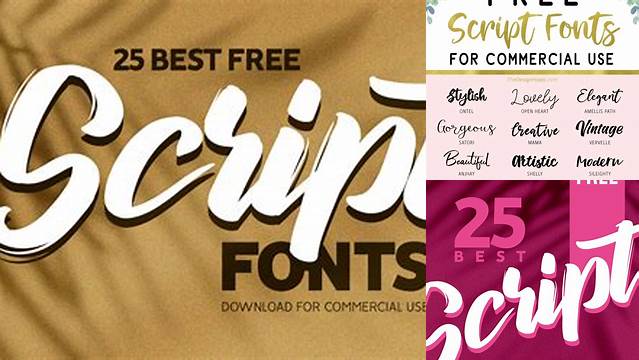
Top Free Script Fonts For Commercial Use
Hey guys! Finding the perfect script font for your project can be a real game-changer. But let's face it, not everyone has the budget to splurge on premium fonts. That's why I've put together this ultimate guide to the best free commercial script fonts out there. Whether you're working on branding, websites, or print materials, these fonts will help you add a touch of elegance and personality without breaking the bank. So, let's dive in and explore the fantastic world of free script fonts!
1. Elegant Free Script Fonts for Branding
When it comes to branding, the right font can make all the difference. Elegant free script fonts can help your brand project a sense of sophistication, luxury, and approachability. Imagine a high-end boutique using a delicate script font for their logo – it immediately conveys a certain image. But what makes a script font truly elegant? It's often the flow of the letters, the delicate strokes, and the overall aesthetic that exudes class. These fonts are perfect for logos, website headers, and marketing materials. Think about how the font will look on a business card or a website banner; it needs to be legible yet stylish. Choosing an elegant script font means finding one that’s not overly decorative but still has a unique flair. Look for fonts with smooth connections between letters and a consistent baseline. You might want to consider how the font pairs with other fonts in your branding palette, ensuring a harmonious and professional look. In short, using an elegant free script font can elevate your branding and help you create a memorable and impactful impression.
2. Modern Free Script Fonts for Websites
In the world of web design, staying current is key. Modern free script fonts can add a touch of personality and style to your website without sacrificing readability. A contemporary script font can make your website stand out from the crowd, whether it's used in headings, call-to-action buttons, or even body text (though use sparingly for body text!). What exactly defines a modern script font? Often, it’s a font that blends the fluidity of traditional script with a clean, contemporary aesthetic. These fonts often feature a slightly more structured feel compared to classic scripts, making them more legible on screens. When selecting a font for your website, think about how it will look on different devices and browsers. Responsiveness is crucial! You also want to consider the overall user experience. A beautifully designed script font can draw visitors in, but if it’s difficult to read, they might click away. Pairing a modern free script font with a clean sans-serif font for body text is a popular strategy for maintaining readability while adding visual interest. Experiment with different font pairings to see what works best for your site’s overall design and brand identity.
3. Creative Free Script Fonts for Print Materials
Print materials offer a tangible way to connect with your audience, and creative free script fonts can help you make a lasting impression. From business cards and brochures to posters and packaging, the right font can add personality and flair. But what makes a script font creative? It's the unique touches, the unexpected flourishes, and the overall artistry of the design. These fonts often have a handmade feel, which can add a personal and authentic touch to your print materials. When choosing a font for print, think about the medium you're using. Will it be printed on glossy paper? Matte? The texture of the paper can affect how the font appears. Also, consider the size of the font. A highly decorative script might look stunning in a large headline but be illegible in smaller body text. Balancing creativity with legibility is crucial. A well-chosen creative free script font can transform your print materials from ordinary to extraordinary, helping you capture attention and convey your message effectively.
4. Best Free Calligraphy Script Fonts
Calligraphy fonts have a timeless appeal, evoking a sense of elegance and tradition. The best free calligraphy script fonts can add a touch of sophistication to invitations, certificates, and other formal documents. But what exactly defines a calligraphy font? These fonts are inspired by the art of hand lettering, with flowing strokes and graceful curves that mimic the look of traditional calligraphy pens. When selecting a calligraphy font, pay attention to the weight and contrast of the strokes. A well-designed calligraphy font will have varying stroke thicknesses, adding to its visual interest and authenticity. These fonts often feature elaborate swashes and flourishes, so be mindful of how these details will look in different contexts. While calligraphy fonts are beautiful, they can sometimes be less legible than other script styles, especially in smaller sizes. Save them for headlines, titles, or other prominent text elements where they can truly shine. Using one of the best free calligraphy script fonts can add a touch of artistry and class to your designs, making them stand out with timeless beauty.
5. Free Handwritten Script Fonts for a Personal Touch
Want to add a personal and relatable feel to your designs? Free handwritten script fonts are the way to go. These fonts mimic the look of actual handwriting, adding a human touch to your projects. They’re perfect for greeting cards, thank-you notes, and any design where you want to convey warmth and authenticity. But what makes a script font feel genuinely handwritten? It's the imperfections, the slight variations in stroke width, and the unique character of each letter. These fonts often have a more casual and informal feel compared to traditional scripts. When using a handwritten font, think about the overall tone you want to convey. Are you going for playful and whimsical, or sincere and heartfelt? There are handwritten fonts for every mood! Because these fonts are designed to look like handwriting, legibility can sometimes be a challenge. Make sure your text is still easy to read, especially in larger blocks of copy. Integrating free handwritten script fonts into your designs can create a sense of intimacy and connection with your audience, making your message more personal and memorable.
6. Bold Free Script Fonts for Headlines
Headlines need to grab attention, and bold free script fonts are perfect for making a statement. These fonts have a strong visual presence, making them ideal for posters, banners, and website headers. A bold script can immediately convey a sense of confidence and style, drawing the reader's eye and making your message stand out. But what makes a script font bold? It’s the heavier weight of the strokes, which creates a more substantial and impactful appearance. When selecting a bold script font, legibility is key. Make sure the letters are still clear and easy to read, even at larger sizes. Avoid fonts that are overly decorative or have too many flourishes, as these can become distracting in a bold format. Consider the overall tone of your headline. Do you want it to feel modern and edgy, or classic and sophisticated? There's a bold script font to suit every style. Using one of the bold free script fonts in your headlines can ensure your message is seen and remembered, making your design more impactful and effective.
7. Light Free Script Fonts for Subtitles
While headlines demand boldness, subtitles often benefit from a lighter touch. Light free script fonts are perfect for adding a subtle elegance to your designs without overwhelming the main text. These fonts are ideal for invitations, thank-you notes, and other delicate designs. But what defines a light script font? It's the thinness of the strokes, which creates a more delicate and airy appearance. A light script font can add a touch of sophistication without overpowering the main message. When choosing a light script font, legibility is crucial. Ensure the font remains readable even at smaller sizes and on different backgrounds. Avoid using light script fonts on overly busy or textured backgrounds, as this can make them difficult to read. Consider the overall aesthetic of your design. Do you want a minimalist and modern feel, or a more classic and traditional look? There's a light script font to complement every style. Using light free script fonts for your subtitles can add a refined and graceful touch, enhancing the overall design without stealing the spotlight from the main content.
8. Free Script Fonts with Swashes and Flourishes
Swashes and flourishes can add an extra layer of elegance and personality to your script fonts. Free script fonts with swashes and flourishes are perfect for creating eye-catching designs, adding a decorative touch to invitations, logos, and more. But what exactly are swashes and flourishes? They're the extra strokes and decorative elements that extend from the letters, adding flair and visual interest. These fonts often have a more formal and ornate feel, making them suitable for special occasions and high-end branding. When using fonts with swashes and flourishes, moderation is key. Too many decorative elements can make your text look cluttered and difficult to read. Use these elements sparingly, focusing on key letters or words to add emphasis. Consider the overall design of your project. Do you want a vintage and romantic feel, or a more modern and whimsical look? There's a font with swashes and flourishes to suit every style. Integrating free script fonts with swashes and flourishes can transform your designs into works of art, adding a touch of sophistication and charm.
9. Vintage Free Script Fonts for Retro Designs
Retro designs are all the rage, and vintage free script fonts are the perfect way to capture that nostalgic feel. These fonts evoke the charm and character of past eras, adding a touch of authenticity to your projects. Whether you're working on a retro-themed poster, a vintage-inspired logo, or a classic invitation, a vintage script font can transport your audience back in time. But what makes a script font vintage? It’s often the unique letterforms, the textured appearance, and the overall aesthetic that harkens back to a specific era. Think about the fonts used in old advertisements or movie posters – those are great sources of inspiration. When choosing a vintage script font, consider the specific era you're trying to emulate. The fonts used in the 1920s will have a different look and feel than those from the 1950s or 1970s. Also, think about how the font will pair with other design elements, such as colors and illustrations. Using vintage free script fonts can add depth and character to your designs, creating a timeless appeal that resonates with your audience.
10. Casual Free Script Fonts for Friendly Projects
For projects that need a friendly and approachable feel, casual free script fonts are the way to go. These fonts have a relaxed and informal vibe, making them perfect for social media graphics, blog headers, and personal projects. A casual script can convey warmth and authenticity, inviting your audience to connect with your message on a more personal level. But what makes a script font casual? It's the loose and flowing letterforms, the slight imperfections, and the overall handmade feel. These fonts often have a more playful and whimsical look compared to formal scripts. When selecting a casual script font, consider the tone of your project. Do you want it to feel fun and lighthearted, or sincere and heartfelt? There's a casual script font to suit every mood. Legibility is still important, even with a casual font. Make sure the letters are clear and easy to read, especially in larger blocks of text. Integrating casual free script fonts into your designs can create a welcoming and approachable atmosphere, making your audience feel right at home.
11. Brush Free Script Fonts for Artistic Flair
Want to add an artistic touch to your designs? Brush free script fonts are the perfect way to do it. These fonts mimic the look of hand-painted brushstrokes, adding a dynamic and expressive feel to your projects. They're ideal for posters, album covers, and any design where you want to convey creativity and energy. But what defines a brush script font? It's the bold strokes, the textured appearance, and the overall feeling of movement and fluidity. These fonts often have a more organic and handmade look compared to traditional scripts. When choosing a brush script font, consider the level of detail and texture. Some brush scripts are highly detailed, while others have a more simplified and abstract look. Also, think about how the font will pair with other design elements, such as illustrations and photographs. Using brush free script fonts can transform your designs into works of art, adding a touch of artistry and flair that captures attention and inspires creativity.
12. Modern Calligraphy Free Script Fonts
Blending the elegance of calligraphy with a contemporary edge, modern calligraphy free script fonts are a fantastic choice for projects seeking sophistication with a twist. These fonts often feature cleaner lines and a less formal structure than traditional calligraphy, making them suitable for a wider range of applications, from wedding invitations to website headers. But what exactly sets modern calligraphy apart? It’s the fusion of classic calligraphic techniques with modern design sensibilities. This means you get the beauty and flow of calligraphy but with a more streamlined and accessible feel. When choosing a font, consider the overall tone of your project. Do you want a font that feels romantic and delicate, or one that’s more bold and assertive? Modern calligraphy fonts come in a variety of styles, each with its own unique personality. A well-chosen modern calligraphy free script font can add a touch of class and creativity to your designs, helping you create a lasting impression.
13. Free Script Fonts for Logo Design
A logo is the cornerstone of any brand, and the font you choose plays a crucial role in conveying your brand’s identity. Free script fonts for logo design offer a cost-effective way to create a memorable and impactful visual mark. But what makes a script font suitable for a logo? It’s a combination of readability, uniqueness, and the ability to reflect your brand’s personality. Your logo font should be legible at various sizes, from business cards to billboards. It should also stand out from the crowd, helping your brand make a distinct impression. When selecting a font, think about your target audience and the message you want to send. A free script font for logo design can convey elegance, creativity, or a personal touch, depending on the style you choose. Experiment with different options and consider how the font pairs with your brand’s colors and other visual elements to create a cohesive and compelling logo.
14. Free Script Fonts for Wedding Invitations
Wedding invitations set the tone for your special day, and the font you choose can make a big difference in conveying the right atmosphere. Free script fonts for wedding invitations offer a range of styles, from elegant and formal to romantic and whimsical. But what makes a script font perfect for a wedding invitation? It’s the ability to convey the significance and beauty of the occasion. A script font can add a touch of sophistication and grace, making your invitations feel special and memorable. When selecting a font, consider the overall theme of your wedding. A free script font for wedding invitations can range from traditional calligraphy styles to modern and playful scripts, so choose one that reflects your personal style and the tone of your event. Ensure the font is legible and pairs well with the invitation’s design elements to create a cohesive and stunning invitation suite.
15. Free Script Fonts for Business Cards
Business cards are a crucial networking tool, and the font you choose can make a lasting impression. Free script fonts for business cards can add a touch of personality and style, helping you stand out from the crowd. But what makes a script font effective on a business card? It’s the ability to convey professionalism while also showcasing your unique brand. Your business card font should be legible at a small size, making it easy for recipients to read your contact information. It should also reflect your brand’s identity and values. A free script font for business cards can range from elegant and refined to modern and creative, so choose one that aligns with your brand’s personality. Make sure the font pairs well with your logo and other design elements to create a cohesive and impactful business card.
16. Cursive Free Script Fonts
Cursive fonts mimic the flowing strokes of handwriting, adding a personal and elegant touch to your designs. Cursive free script fonts are ideal for invitations, thank-you notes, and any project where you want to convey warmth and sincerity. But what exactly defines a cursive font? It’s the connected letters and fluid strokes that give the impression of handwritten script. Cursive fonts can range from formal and ornate to casual and playful, making them versatile for various applications. When selecting a font, consider the overall tone of your project. A cursive free script font can add a touch of sophistication or a friendly feel, depending on the style you choose. Ensure the font is legible, especially in larger blocks of text, and pairs well with other design elements to create a cohesive and inviting design.
17. Formal Free Script Fonts
For projects that require a touch of elegance and sophistication, formal free script fonts are the perfect choice. These fonts exude class and refinement, making them ideal for wedding invitations, certificates, and other formal documents. But what makes a script font formal? It’s the graceful strokes, balanced letterforms, and overall sense of tradition and elegance. Formal script fonts often feature delicate details and elaborate flourishes, adding to their sophisticated appeal. When selecting a font, consider the overall tone of your project. A formal free script font can elevate your design and convey a sense of prestige and importance. Ensure the font is legible, even with its decorative elements, and pairs well with other design elements to create a polished and professional look.
18. Informal Free Script Fonts
When you want to create a friendly and approachable vibe, informal free script fonts are the way to go. These fonts have a relaxed and casual feel, making them ideal for social media graphics, blog headers, and personal projects. But what makes a script font informal? It’s the loose strokes, slightly irregular letterforms, and overall sense of warmth and authenticity. Informal script fonts often have a handmade or handwritten appearance, adding a personal touch to your designs. When selecting a font, consider the overall tone of your project. An informal free script font can help you connect with your audience on a more personal level and create a welcoming atmosphere. Make sure the font is legible and pairs well with other design elements to create a cohesive and engaging design.
19. Luxury Free Script Fonts
To convey a sense of opulence and sophistication, luxury free script fonts are an excellent choice. These fonts exude elegance and refinement, making them ideal for high-end branding, invitations, and other upscale projects. But what makes a script font luxury? It’s the exquisite details, graceful strokes, and overall sense of timeless beauty. Luxury script fonts often feature delicate flourishes and a refined aesthetic, adding to their sophisticated appeal. When selecting a font, consider the overall tone of your project. A luxury free script font can elevate your design and convey a sense of prestige and exclusivity. Ensure the font is legible and pairs well with other design elements to create a polished and impactful design.
20. Unique Free Script Fonts
For projects that demand originality and a distinctive look, unique free script fonts are the perfect solution. These fonts stand out from the crowd with their unconventional letterforms and creative flair, making them ideal for branding, logos, and other designs where you want to make a statement. But what makes a script font unique? It’s the innovative details, unexpected strokes, and overall sense of individuality. Unique script fonts often push the boundaries of traditional script styles, offering a fresh and modern aesthetic. When selecting a font, consider the overall tone of your project. A unique free script font can help you express your brand’s personality and stand out from the competition. Ensure the font is legible and pairs well with other design elements to create a cohesive and memorable design.
21. Free Script Fonts for Crafting
Crafting projects often call for fonts that are both stylish and easy to work with. Free script fonts for crafting are perfect for adding a personal touch to handmade cards, scrapbooks, and other DIY creations. But what makes a script font ideal for crafting? It’s the versatility and ability to be easily cut, printed, or used in various crafting applications. Free script fonts for crafting can range from elegant and flowing to playful and whimsical, so choose one that fits the theme of your project. Legibility is important, especially when working with smaller text sizes. Also, consider how the font will look when cut from paper or vinyl. A well-chosen script font can elevate your crafting projects and add a handmade touch that's both charming and professional.
22. Free Script Fonts for Cricut
Cricut machines are a crafter's best friend, and the right font can make all the difference in your projects. Free script fonts for Cricut are specifically designed to be easily cut and weeded, making your crafting experience smoother and more enjoyable. When selecting a font for your Cricut projects, look for clean lines and a balanced design. Fonts with thin, delicate strokes may be more challenging to cut, so opt for something with a slightly bolder weight. Free script fonts for Cricut should also be easy to read, even at smaller sizes. Test your chosen font before committing to a large project to ensure it cuts cleanly and the design is easily weeded. A great script font can add a personalized touch to everything from vinyl decals to paper crafts.
23. Free Script Fonts for Silhouette
Similar to Cricut, Silhouette cutting machines require fonts that are optimized for cutting intricate designs. Free script fonts for Silhouette need to have clean lines and a weight that's substantial enough to cut well, but not so heavy that weeding becomes difficult. When choosing free script fonts for Silhouette, consider the complexity of the design and the material you'll be cutting. Some fonts may have intricate details that are best suited for larger projects or sturdier materials. Test cuts are always a good idea to ensure your chosen font works well with your machine and material. The right script font can elevate your Silhouette projects, adding a touch of elegance and personalization to everything from home décor to custom apparel.
24. Best Free Monoline Script Fonts
Monoline script fonts are characterized by their consistent stroke width, giving them a clean and modern look. The best free monoline script fonts are versatile and can be used in a wide range of applications, from logos and branding to invitations and website design. What makes a monoline script font stand out? It's the simplicity and clarity of the design. The uniform stroke width creates a sleek and contemporary feel that works well in minimalist designs. When selecting a monoline script font, consider legibility and spacing. The best free monoline script fonts should be easy to read, even at smaller sizes, and the letters should be well-spaced to avoid overcrowding. A great monoline script font can add a touch of sophistication to your projects without being overly ornate.
25. Free Script Fonts with Ligatures
Ligatures are special characters that combine two or more letters into a single glyph, adding a touch of elegance and sophistication to your typography. Free script fonts with ligatures can elevate your designs, making them look more polished and professional. But what makes ligatures so special? They create a more seamless and natural flow between letters, mimicking the look of handwriting. When choosing free script fonts with ligatures, make sure the ligatures are well-designed and enhance the overall look of the font. Too many ligatures or poorly designed ones can make the text look cluttered and difficult to read. Use ligatures sparingly, focusing on key words or phrases to add emphasis and visual interest. A script font with well-executed ligatures can add a touch of artistry to your designs.
26. Free Script Fonts for Procreate
Procreate is a popular digital illustration app, and the right font can enhance your artwork. Free script fonts for Procreate need to be compatible with the app and easy to use. When selecting a script font for Procreate, consider the style of your artwork. Do you want something elegant and flowing, or something more casual and playful? Procreate supports a variety of font formats, but it's always a good idea to test the font before using it in a project. Free script fonts for Procreate should also be easy to read on a digital screen. Opt for fonts with clean lines and a balanced design. A great script font can add a touch of personality to your digital artwork, making it stand out and capturing your unique style.
27. Free Script Fonts for Canva
Canva is a user-friendly graphic design platform, and it offers a wide selection of fonts to choose from. Free script fonts for Canva can help you create stunning designs for social media, marketing materials, and more. When selecting a script font for Canva, consider the overall look and feel of your design. Canva offers a variety of script fonts, from elegant calligraphy styles to modern brush scripts. Free script fonts for Canva should be easy to read and compatible with the platform's design tools. Experiment with different fonts to see what works best for your project. A well-chosen script font can elevate your Canva designs, making them look professional and visually appealing.
28. Best Free Thick Script Fonts
Thick script fonts make a bold statement, perfect for headlines, logos, and other designs where you want to grab attention. The best free thick script fonts have a strong visual presence and are easy to read, even at larger sizes. But what makes a thick script font effective? It’s the weight and boldness of the strokes, which create a sense of impact and energy. When selecting a thick script font, consider the overall tone of your project. A best free thick script fonts can convey confidence, creativity, or a sense of fun, depending on the style you choose. Make sure the font is legible and pairs well with other design elements to create a cohesive and eye-catching design.
29. Free Condensed Script Fonts
Condensed script fonts are designed with narrow letterforms, making them ideal for situations where space is limited. Free condensed script fonts can help you fit more text into a design without sacrificing legibility. But what makes a condensed script font effective? It’s the ability to maximize space while maintaining a stylish and readable appearance. When selecting free condensed script fonts, consider the overall design of your project. A condensed script font can add a touch of elegance or a modern flair, depending on the style you choose. Make sure the font is legible and pairs well with other design elements to create a balanced and visually appealing design.
30. Free Script Fonts for Commercial Use License
When using fonts for commercial projects, it's crucial to ensure you have the appropriate license. Free script fonts for commercial use license allow you to use the fonts in your designs without worrying about copyright infringement. But what does a commercial use license mean? It means you have the right to use the font in projects that generate revenue, such as logos, websites, and marketing materials. Before using any free script fonts for commercial use license, always check the license terms to make sure you understand the restrictions. Some fonts may have limitations on usage, such as a maximum number of impressions or a prohibition on embedding the font in certain types of documents. Choosing fonts with a clear commercial use license can save you headaches and ensure your projects are legally sound.